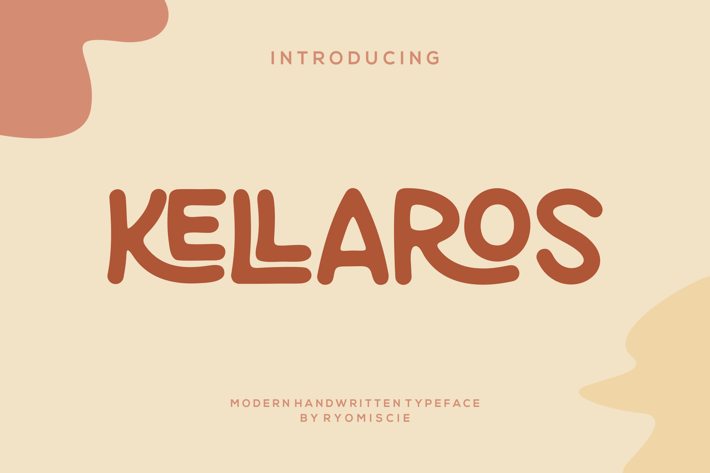
Kellaros - Modern Handwritten Typeface
Introducing our new product Kellaros Font - Modern Handwritten Typeface
Kellaros Font - Modern Handwritten Typeface and authentic display font. The font is suitable for any branding project like logo,
t-shirt printing, esport, and many more. outstanding in a wide range of contexts.